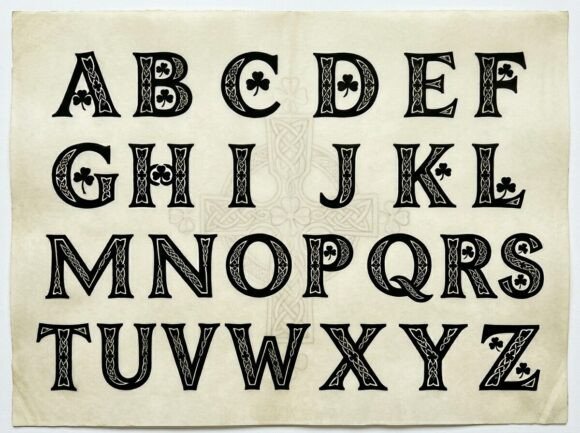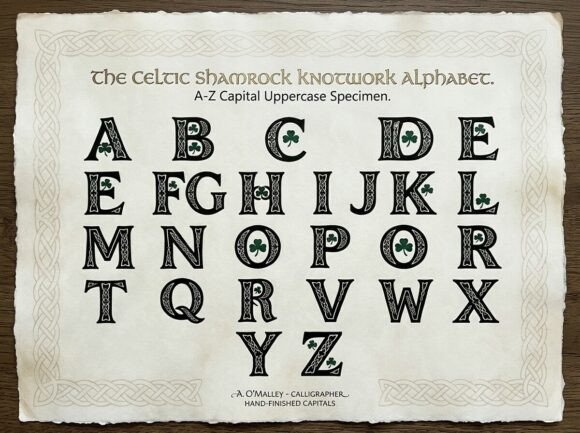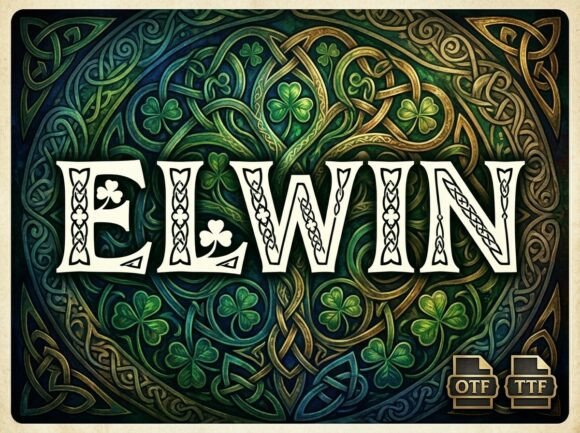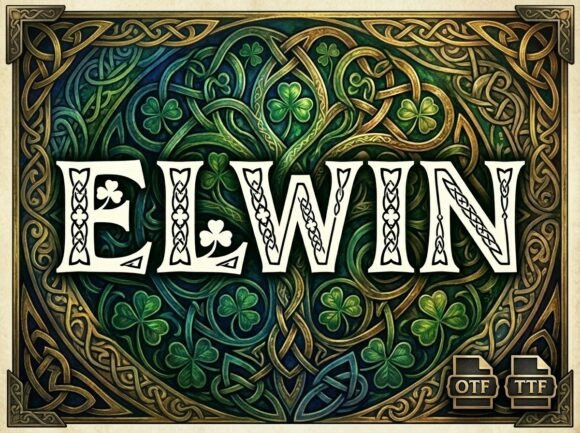
Introducing Elwin Font: A Stunning Decorative Display Font
Are you tired of using the same old fonts for your designs? Look no further than Elwin Font, a unique and artistic display font that’s sure to turn heads. With its strong visual personality and decorative elements, this font is perfect for creators who want to add a touch of elegance and sophistication to their work.
What Makes Elwin Font Special?
Elwin Font is a decorative display font designed to be the center of attention. Its unique artistic elements and strong visual personality make it perfect for bold headlines, artistic logos, and creative packaging. Whether you’re a designer, craftsperson, or DIY enthusiast, this font is sure to elevate your work to the next level.
Key Features of Elwin Font
- Unique Artistic Elements: Elwin Font features intricate and decorative elements that add a touch of elegance to any design.
- Strong Visual Personality: This font has a bold and eye-catching personality that’s sure to grab attention.
- Versatile: Elwin Font is perfect for a variety of design applications, including bold headlines, artistic logos, and creative packaging.
- Professional and Polished Finish: Despite its decorative nature, Elwin Font maintains a professional and polished finish that’s suitable for even the most high-end designs.
IMPORTANT NOTE BEFORE PURCHASE: Elwin Font is an ALL-CAPS (Uppercase Only) display typeface. It does not include lowercase letters. It is specifically designed for high-impact headlines, logos, and decorative initials where every letter is a work of art.
Why Choose Elwin Font?
There are many reasons why Elwin Font is the perfect choice for designers and crafters. Here are just a few:
- Add a Touch of Elegance: Elwin Font adds a touch of elegance and sophistication to any design.
- Stand Out from the Crowd: With its unique artistic elements and strong visual personality, Elwin Font is sure to help your designs stand out from the crowd.
- Perfect for Creative Projects: Whether you’re working on a creative project or just want to add some personality to your designs, Elwin Font is the perfect choice.
How to Use Elwin Font
Elwin Font is easy to use and can be incorporated into a variety of design applications. Here are a few ideas to get you started:
- Headlines and Titles: Use Elwin Font to create bold and eye-catching headlines and titles.
- Logos and Branding: Elwin Font is perfect for creating artistic logos and branding materials.
- Packaging and Labels: Add a touch of elegance to your packaging and labels with Elwin Font.
In conclusion, Elwin Font is a stunning decorative display font that’s perfect for designers and crafters who want to add a touch of elegance and sophistication to their work. With its unique artistic elements, strong visual personality, and versatility, this font is sure to elevate your designs to the next level. So why wait? Purchase Elwin Font today and start creating stunning designs that turn heads!